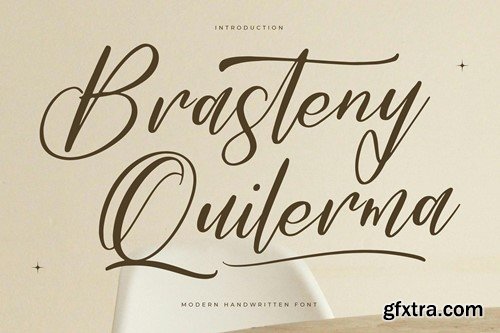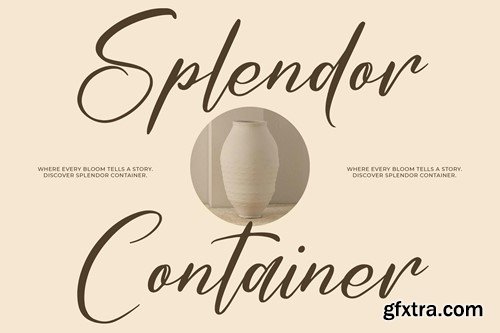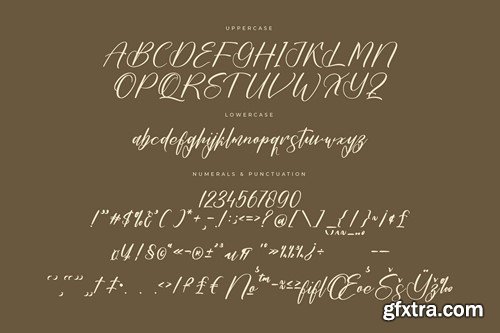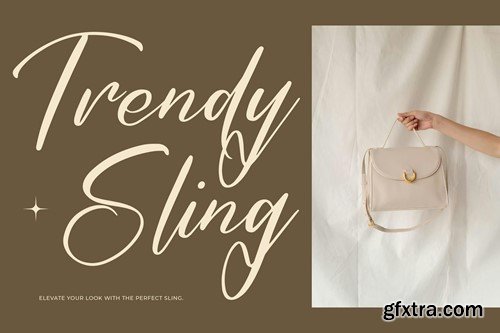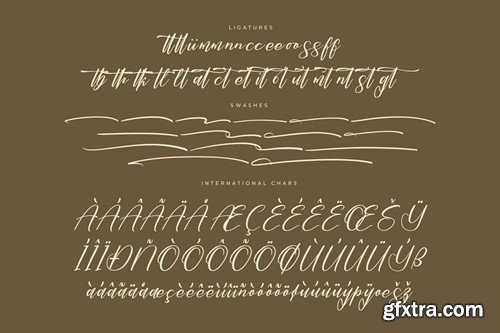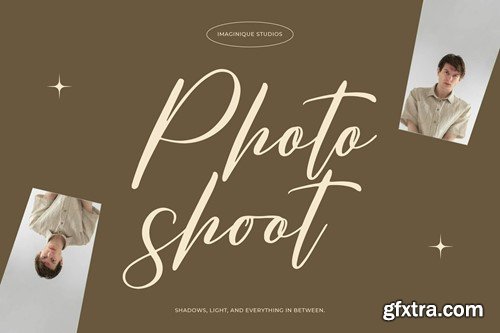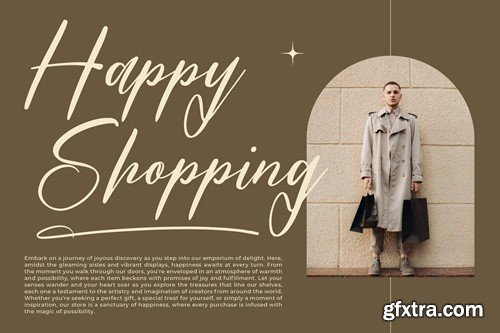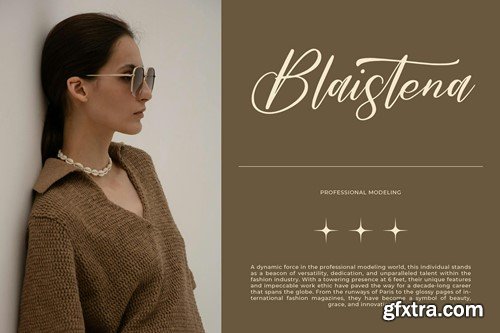
布拉斯蒂尼·奎勒马现代手写体Font SQSDCLC
Brasteny Quilerma Modern Handwritten Font SQSDCLC
Brasteny Quilerma Modern Handwritten Font
Hi ladies & gentlemen, this is one of our fonts suitable to complement your digital and printed creative products. This font is perfect for posters, social media posts, branding, personal projects, etc.